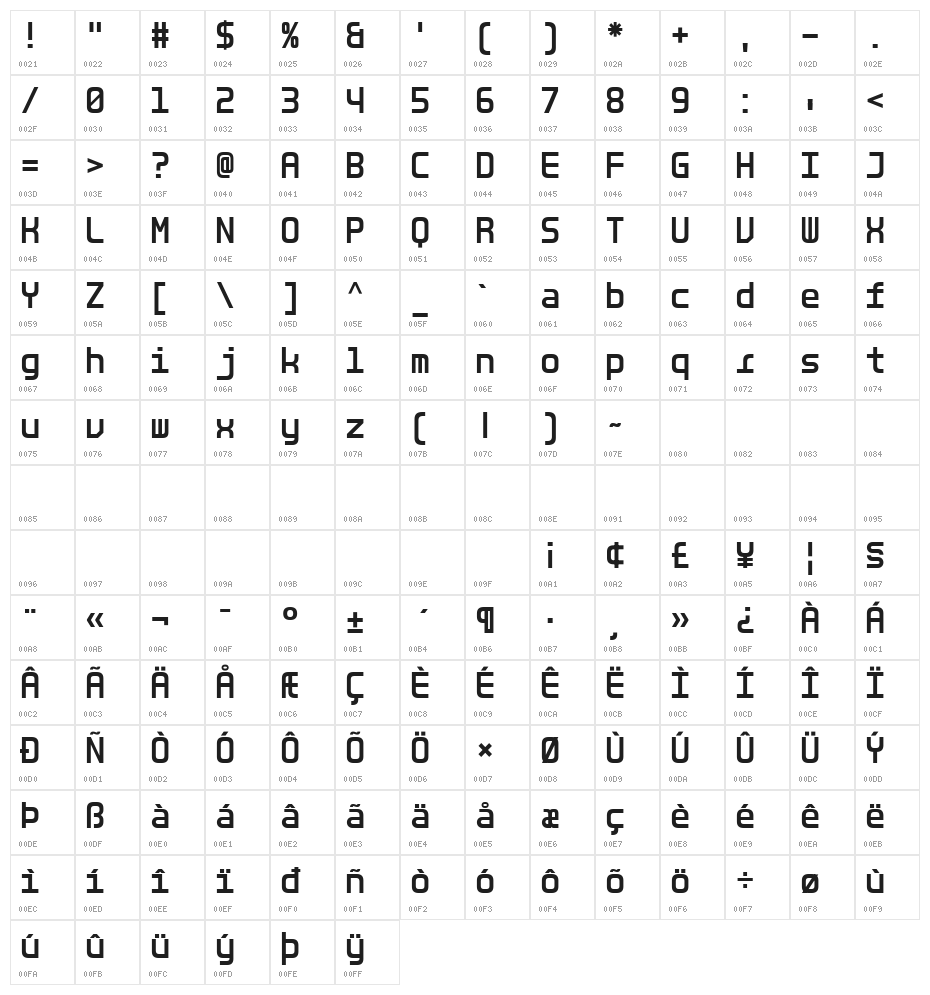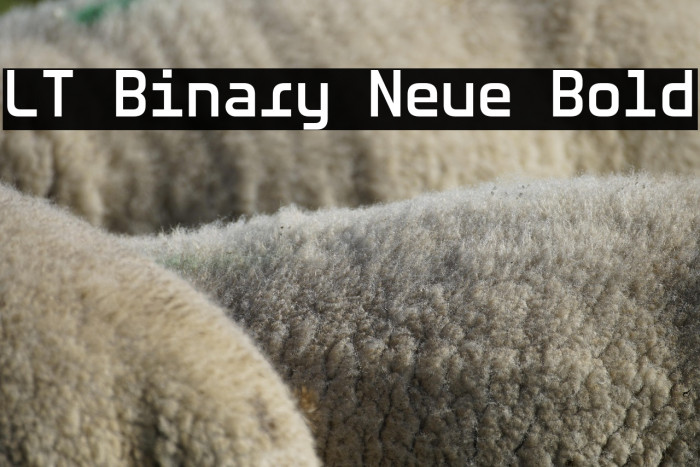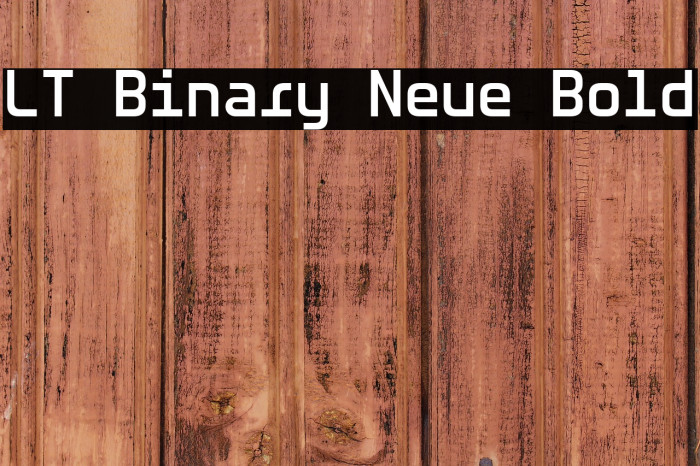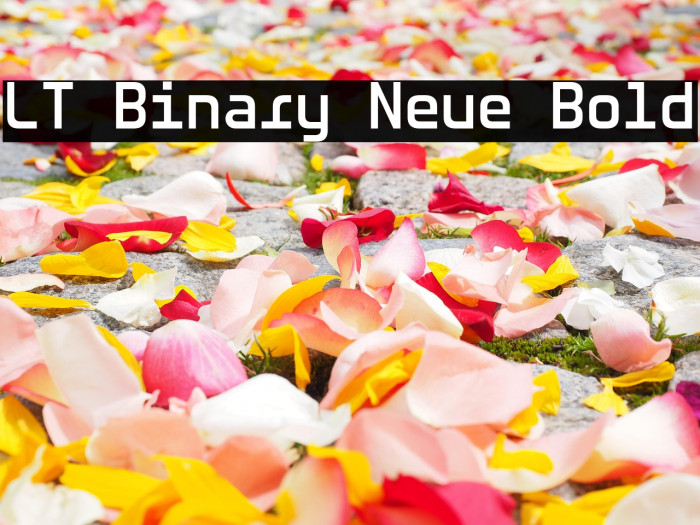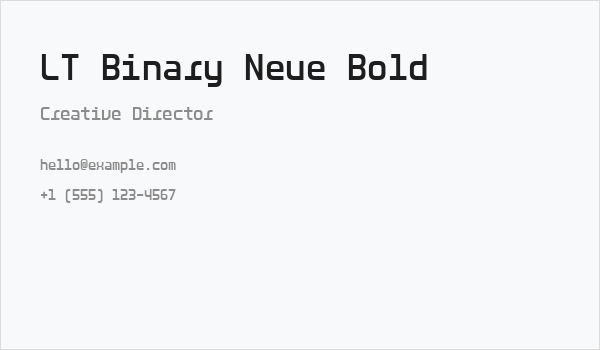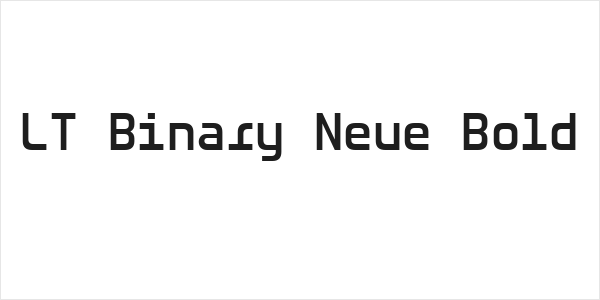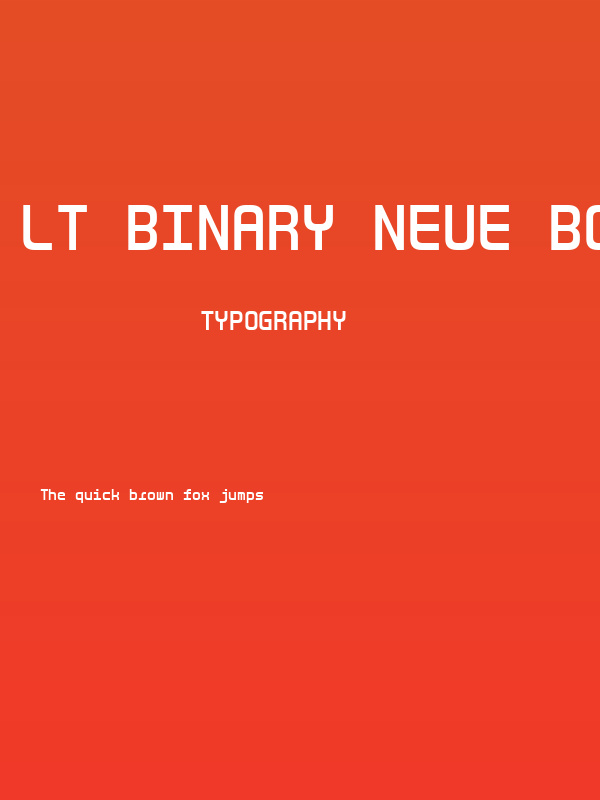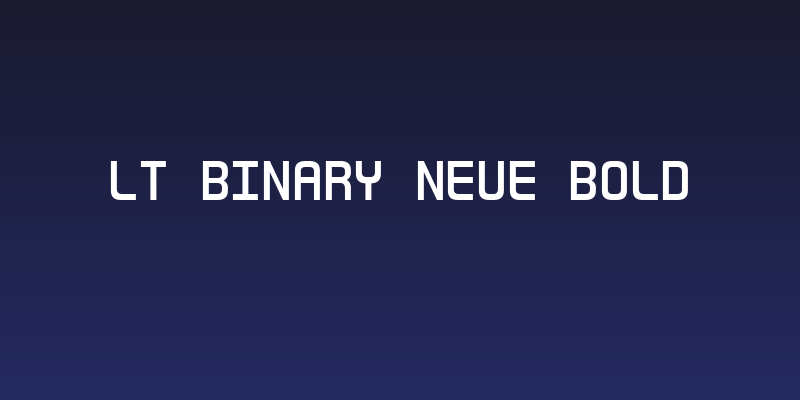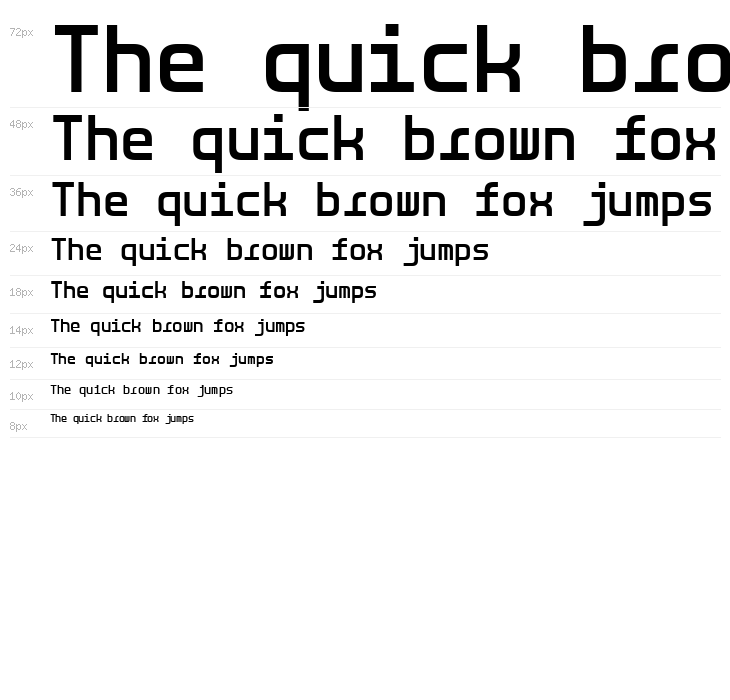
LT Binary Neue Bold Font
LT Binary Neue Bold Description
This font features a bold, geometric design with a modern and clean aesthetic. The characters are constructed with uniform stroke widths, giving it a monospaced appearance. The uppercase letters are tall and slightly condensed, while the lowercase letters maintain a consistent height, enhancing readability. The numerals are clear and distinct, matching the overall style of the alphabet. Special characters are designed to complement the alphanumeric set, maintaining the geometric and structured feel. This font is ideal for digital displays and modern design projects, offering a futuristic and technical vibe.
| Use Case | Headlines, Digital displays, Tech branding |
| Proposed Projects | Ideal for digital interfaces, tech branding, and futuristic design projects. |